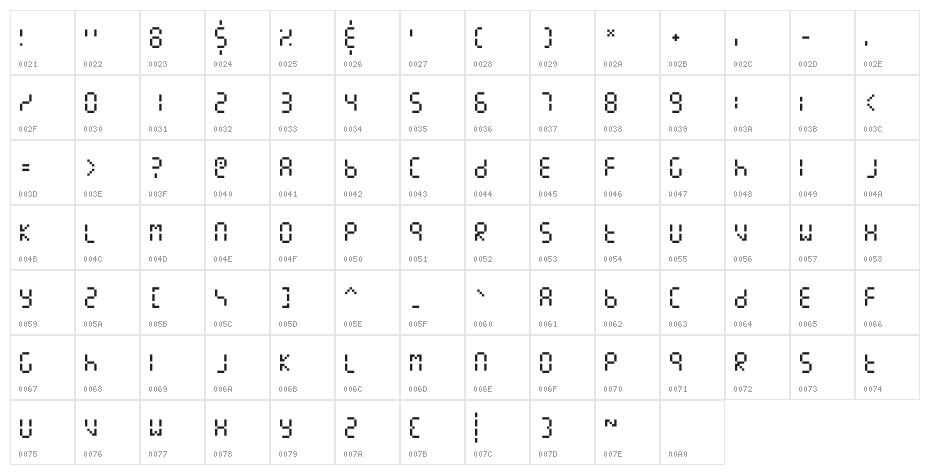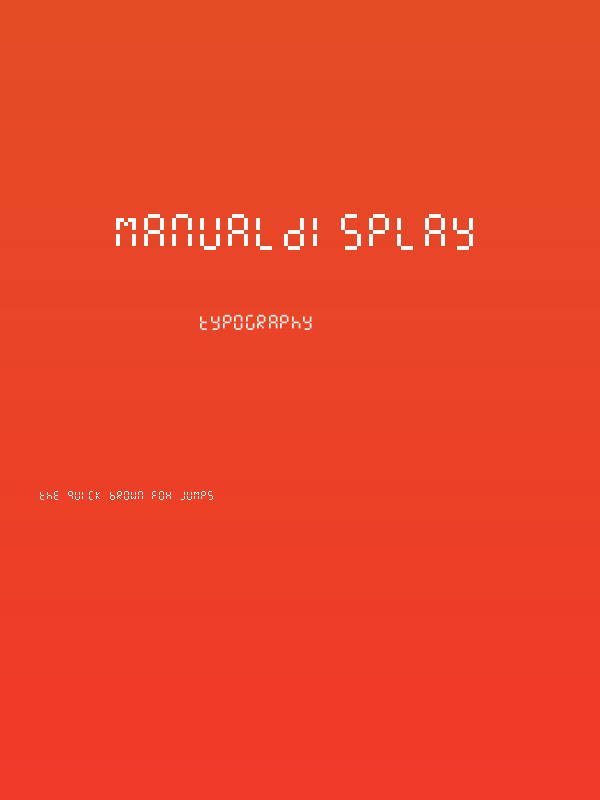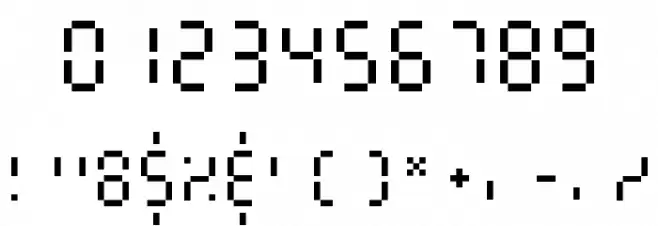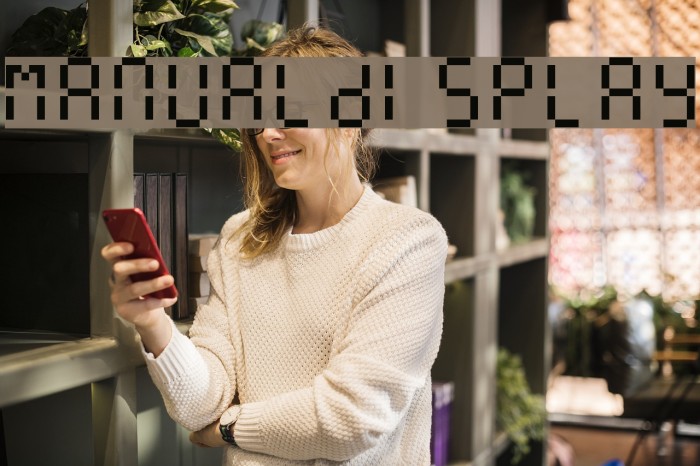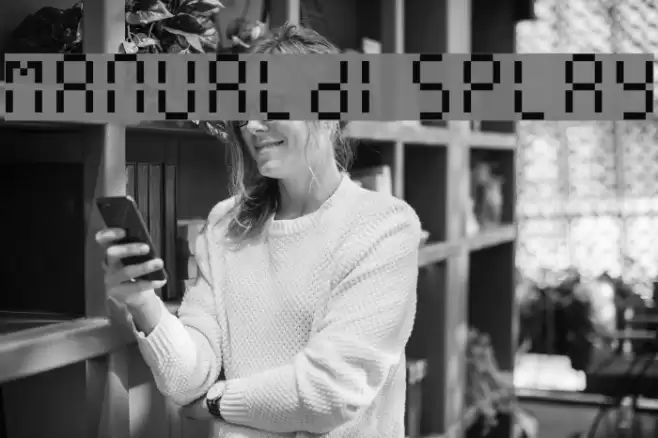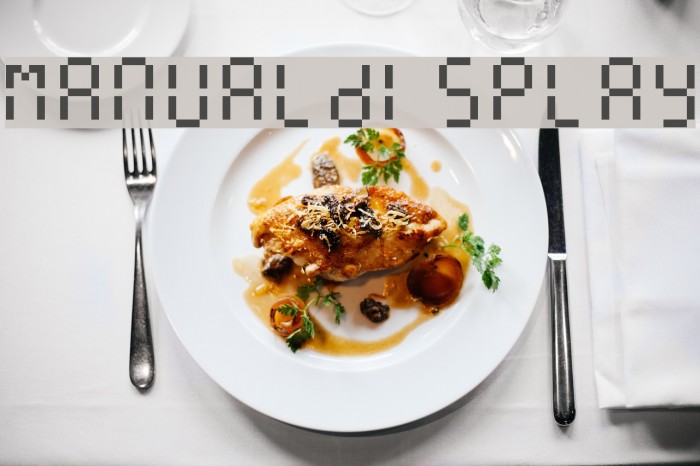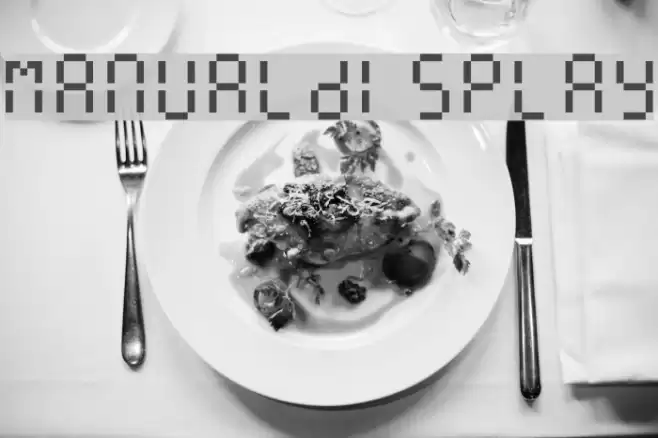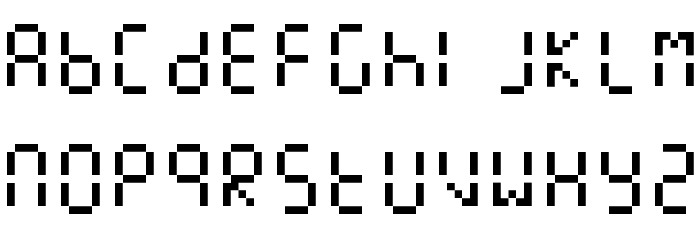
ManualDisplay Font
ManualDisplay Description
This typeface features a pixelated, blocky design reminiscent of early digital displays and retro video games. Each character is constructed from a grid of square pixels, giving it a distinctly digital and geometric appearance. The uniformity in height and width across characters creates a cohesive and structured look. The font maintains a consistent stroke weight, contributing to its low contrast and monospaced nature. Its simplicity and clarity make it highly legible, even at smaller sizes, while the pixelated style adds a nostalgic and playful touch.
| Overall Style | Retro, Digital |
| Use Case | Headlines, Logos, Digital displays |
| Proposed Projects | Ideal for retro-themed designs, video game graphics, digital art projects, and any creative work that seeks to evoke nostalgia for early computing and gaming eras. |